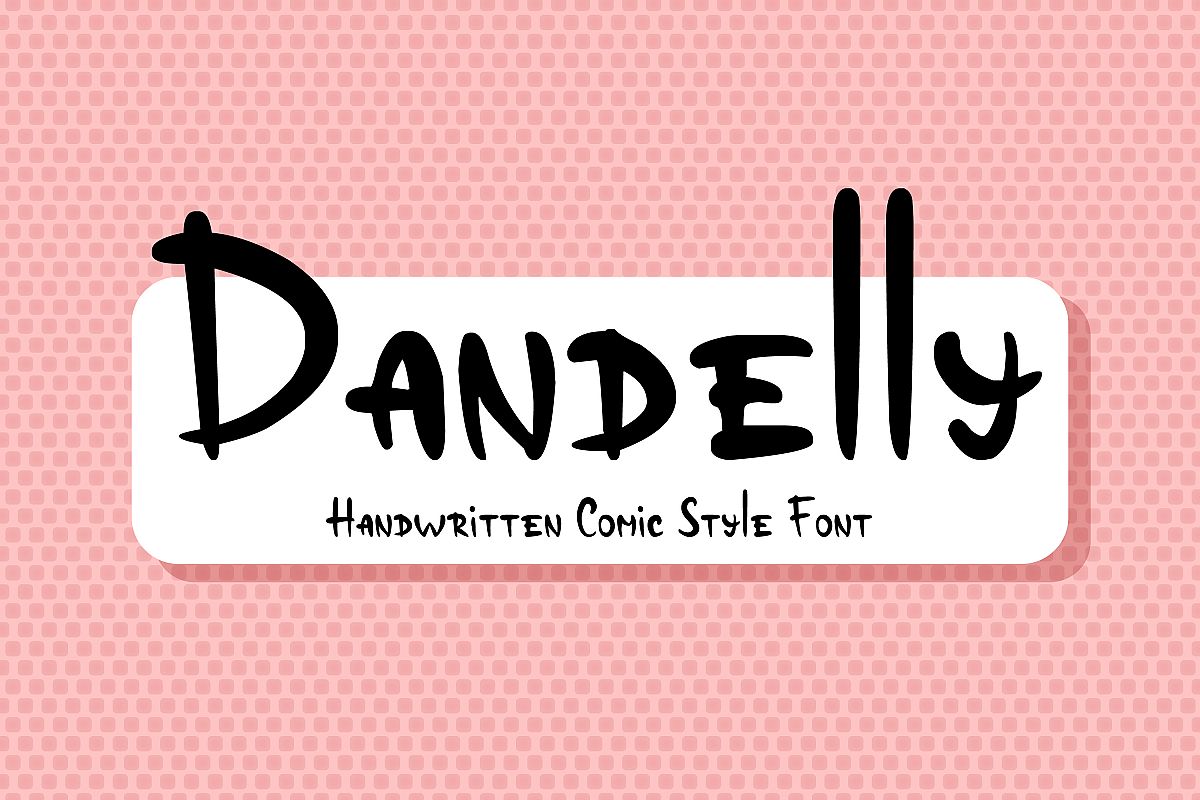
Dandelly - Playful Comic Font
Dandelly
This handwritten font was created for your playful designs and cute whimsical artworks with typography! Goes great as a font for comic books.
Use this product for branding, packaging, monograms, logos, prints, postcards, posters, websites, banners, flyers. Create your own unique art designs using this font!
This is a handwritten font which includes English and Cyrillic characters (uppercase and lowercase), numbers and punctuation symbols.